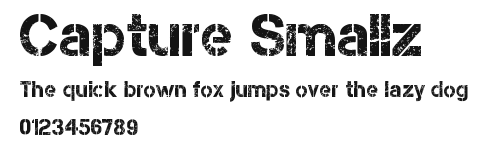
• Font Name: Capture Smallz
Capture Smallz.ttf is a modern, elegant sans-serif font designed for ultimate readability and visual harmony. Perfect for branding, headlines, web design, and print materials.